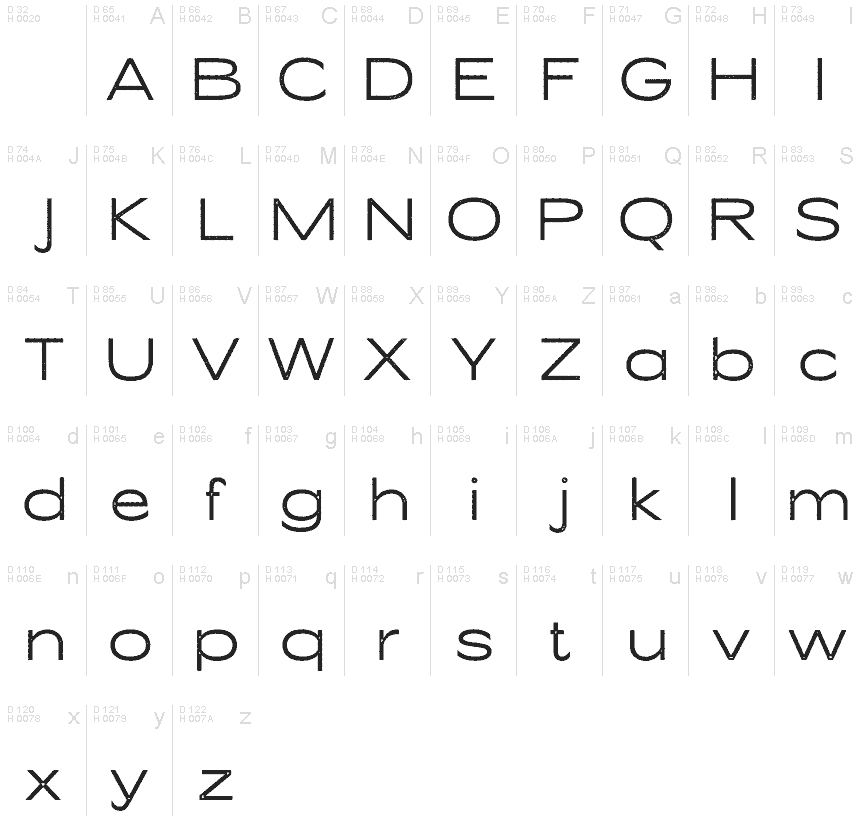
Cenios Vintage Demo Stamp
Cenios Vintage Stamp font by Craft Supply Co. displays classic minimalist elements, clean lines, and a light feel with an expanded width. This free sans serif font interweaves modern geometry through capital letters with eroded outlines for a vintage appeal.
Cenios Vintage Stamp is suitable for artistic projects related to branding, graphic artwork, novels covers, movie posters, advertising campaigns, apps and games design!